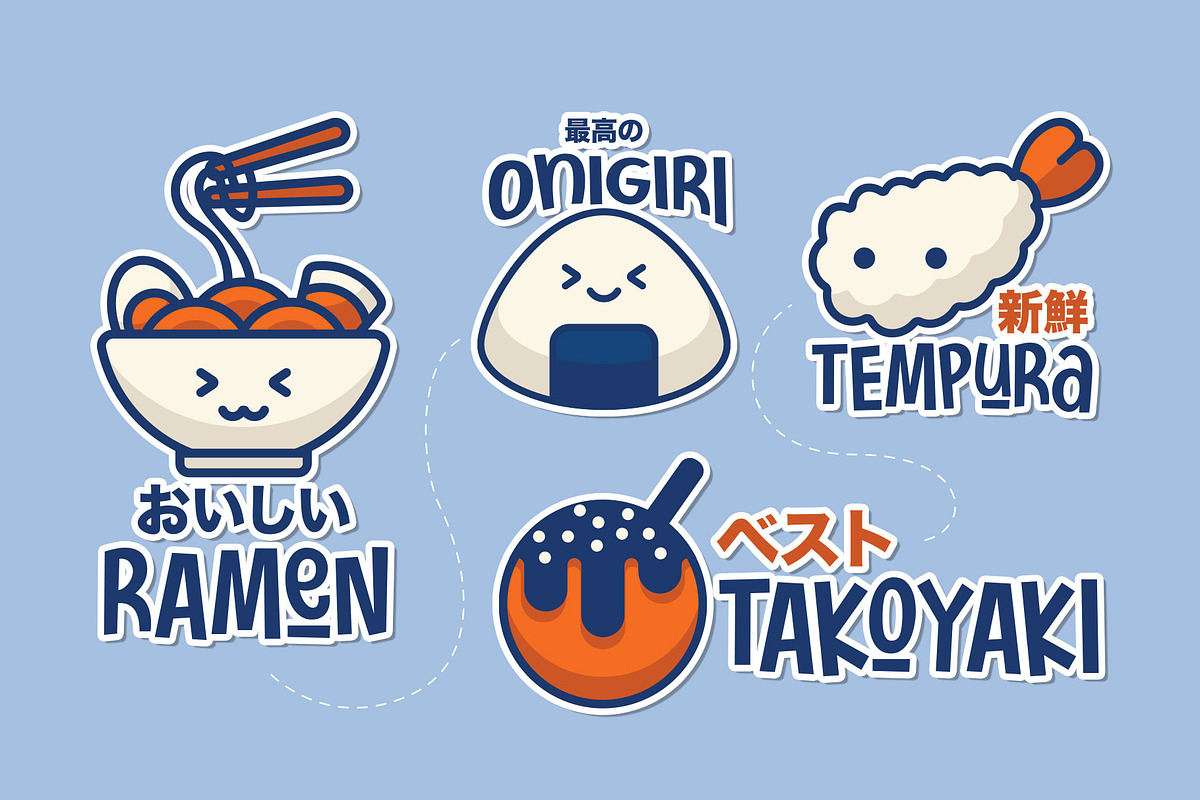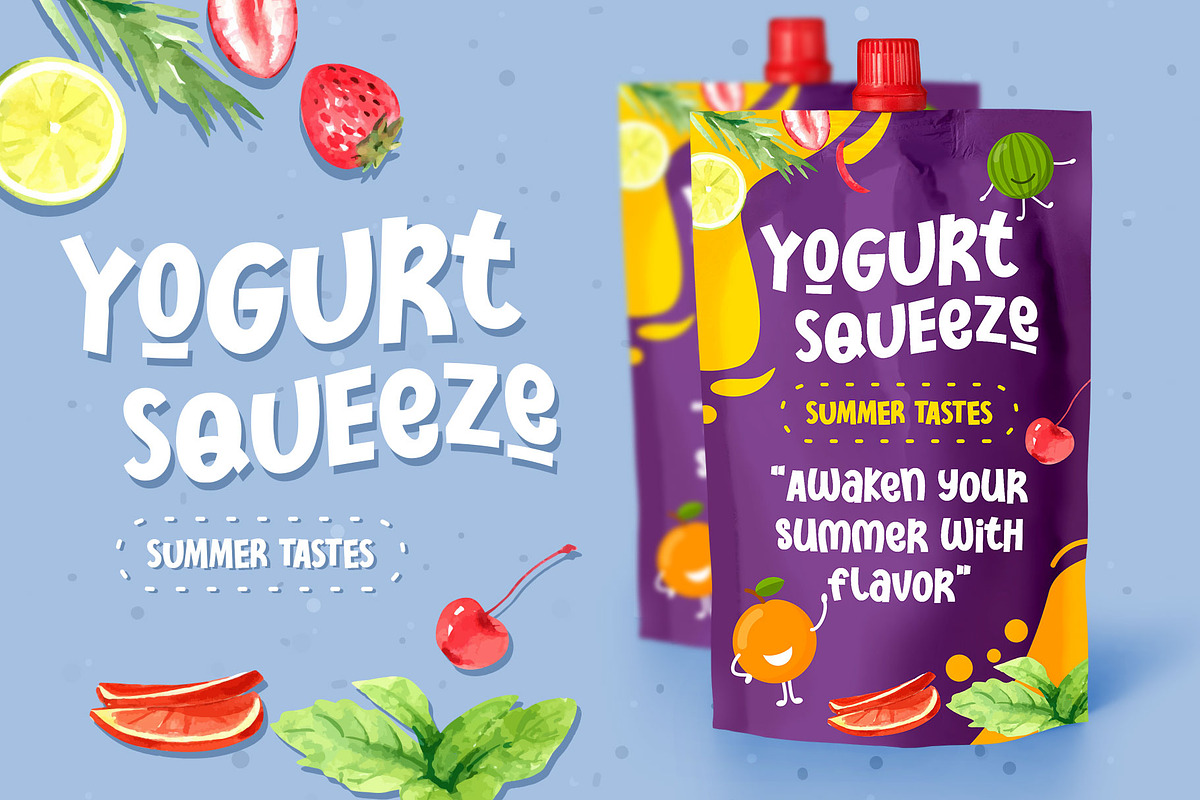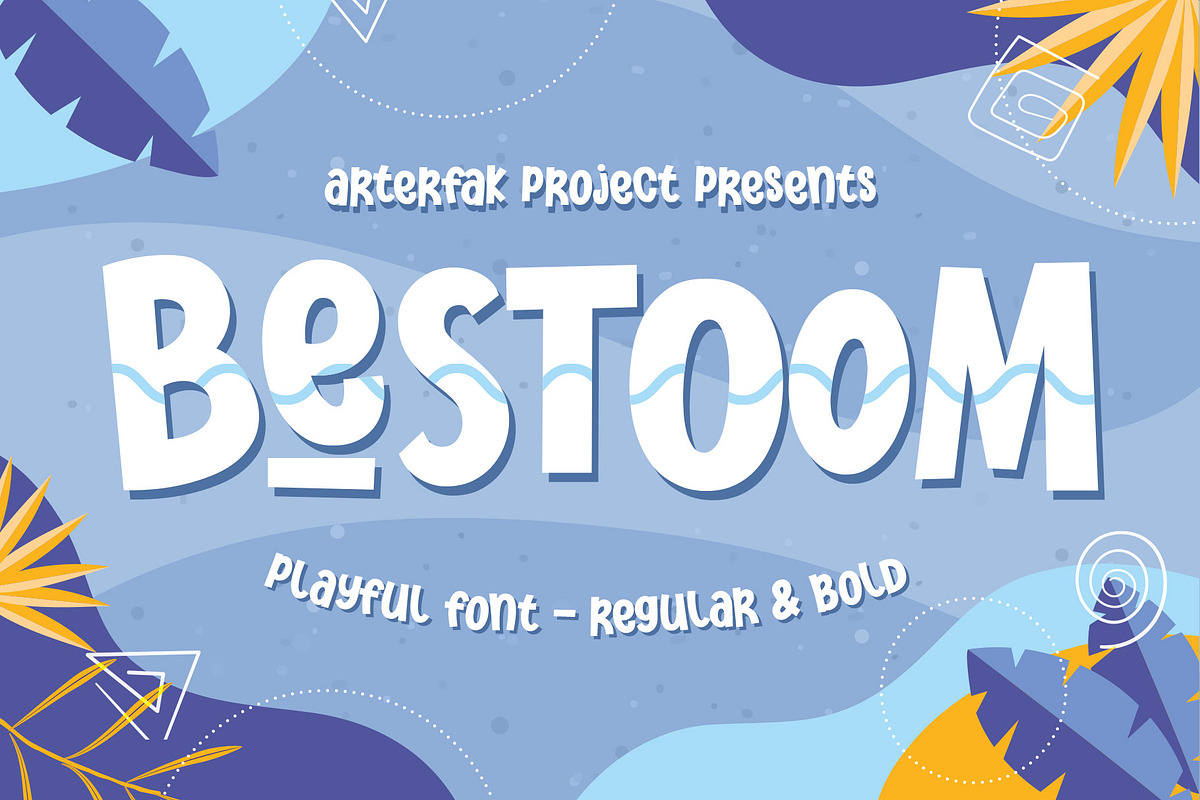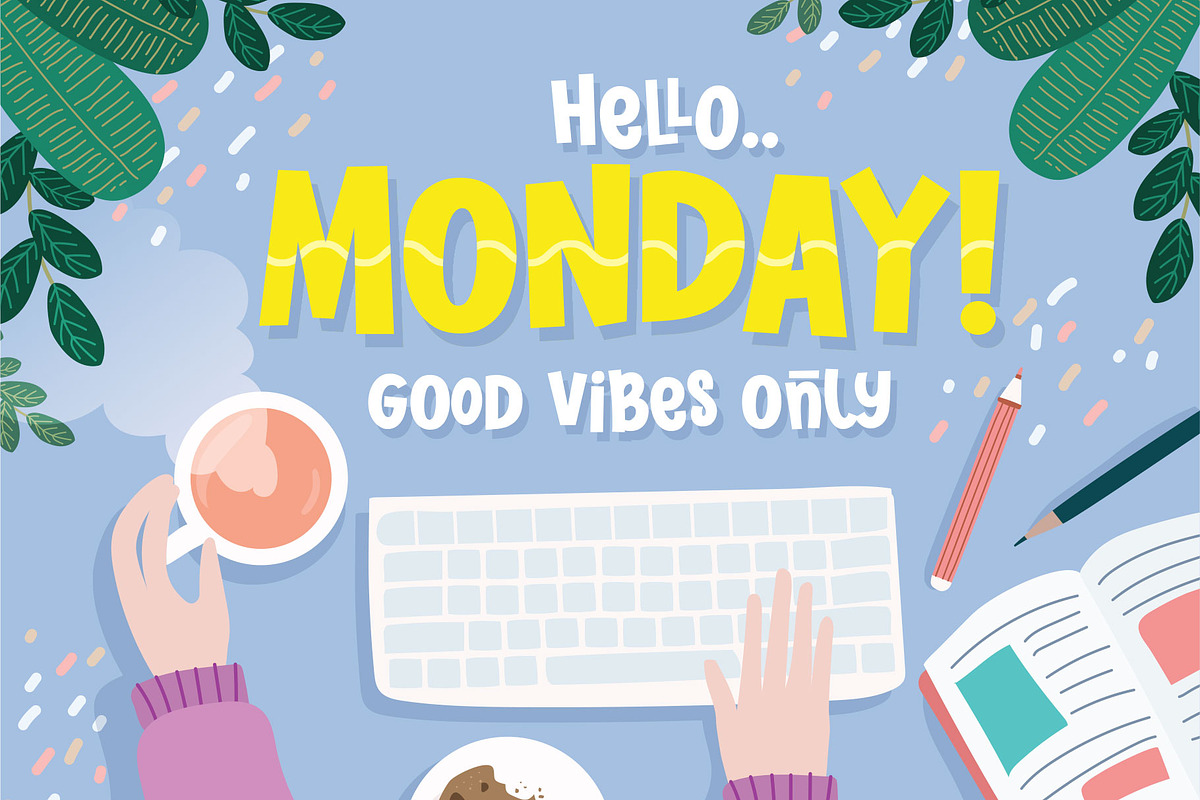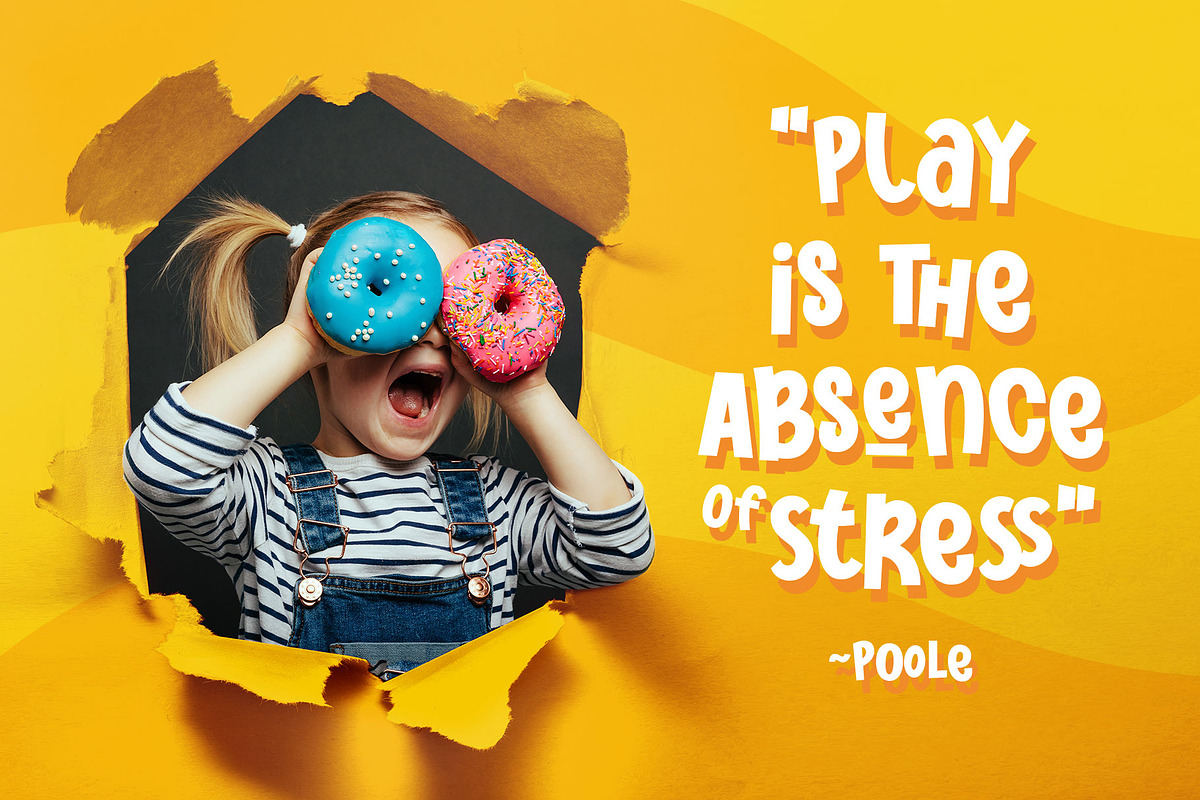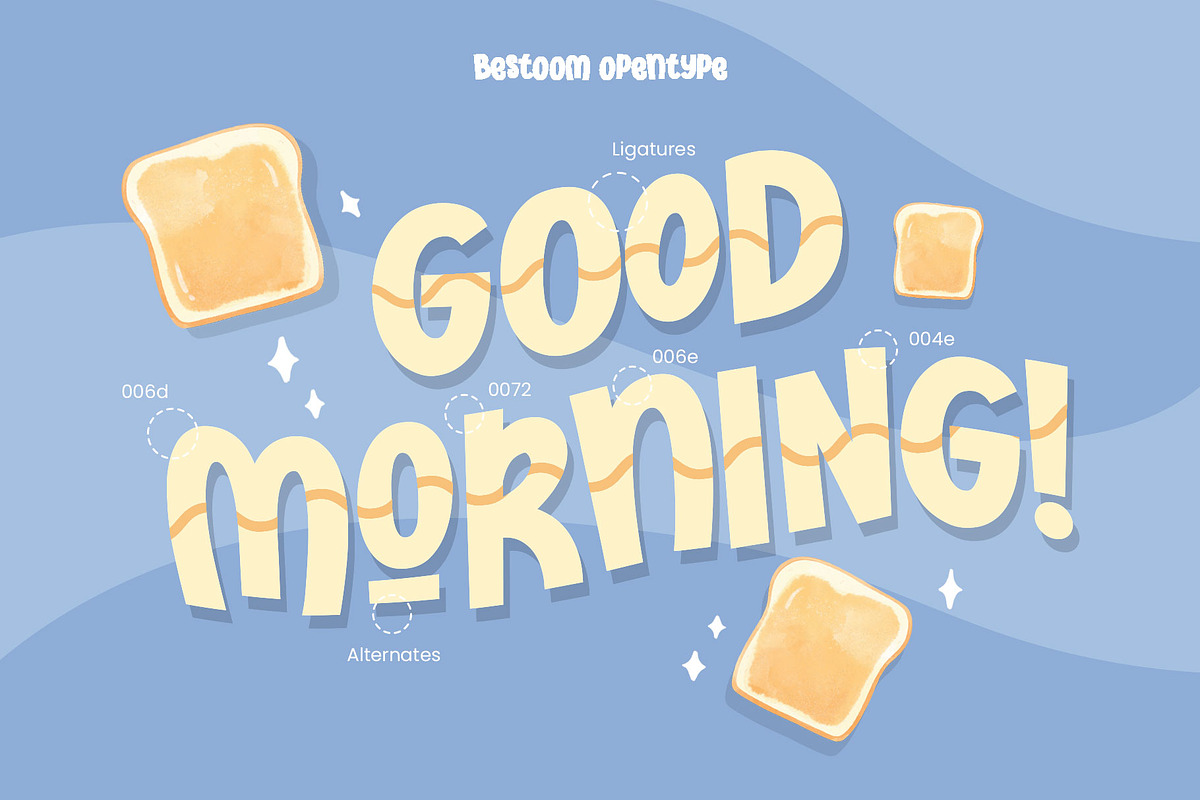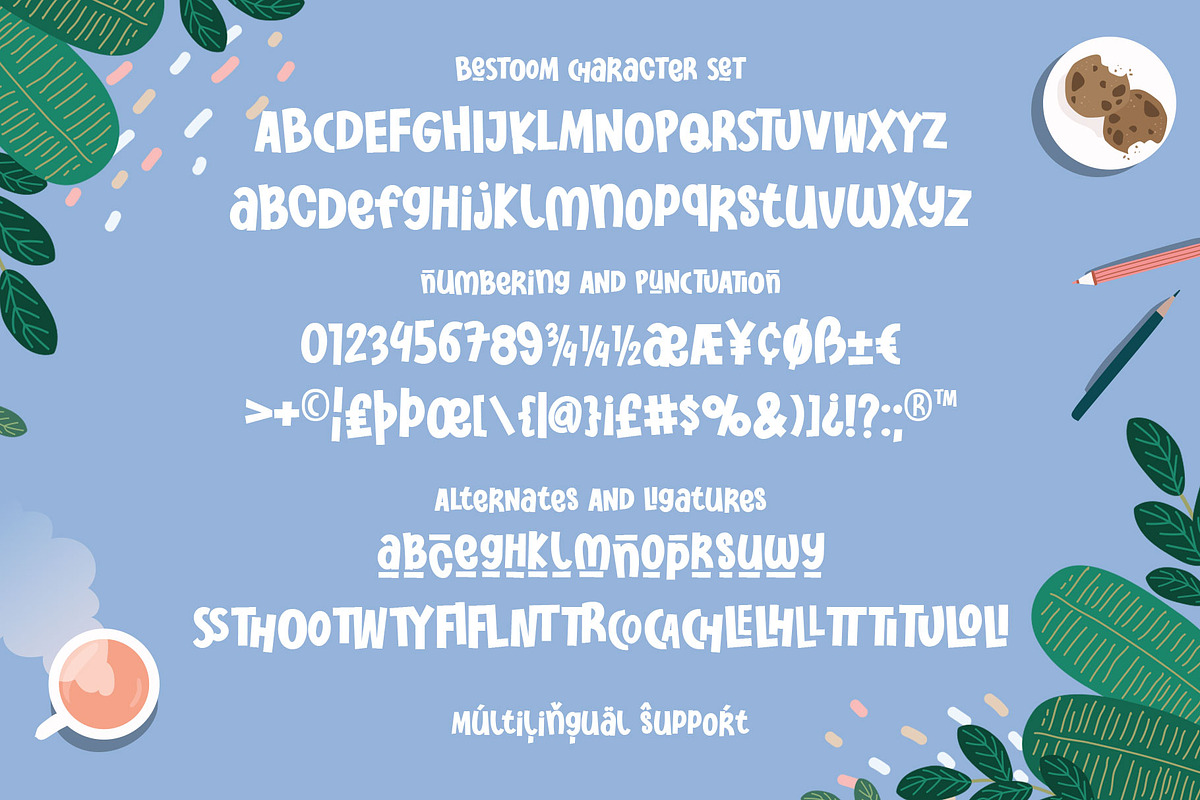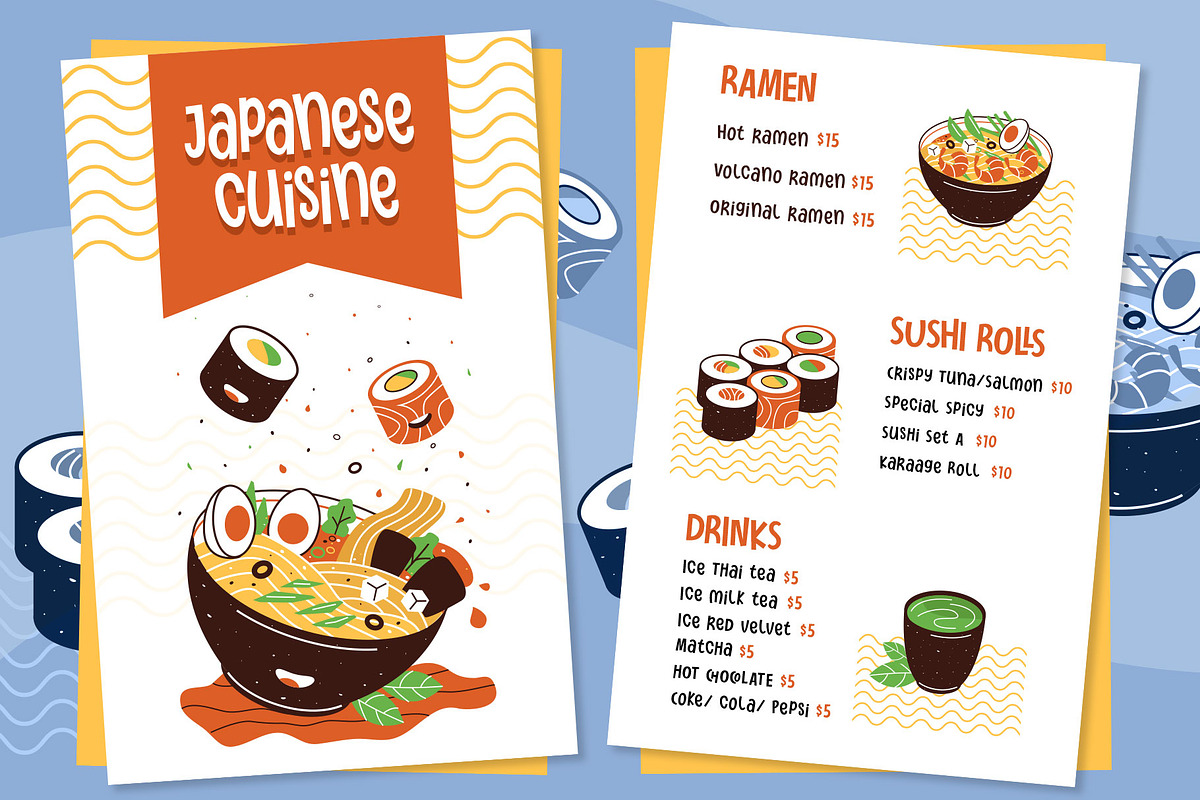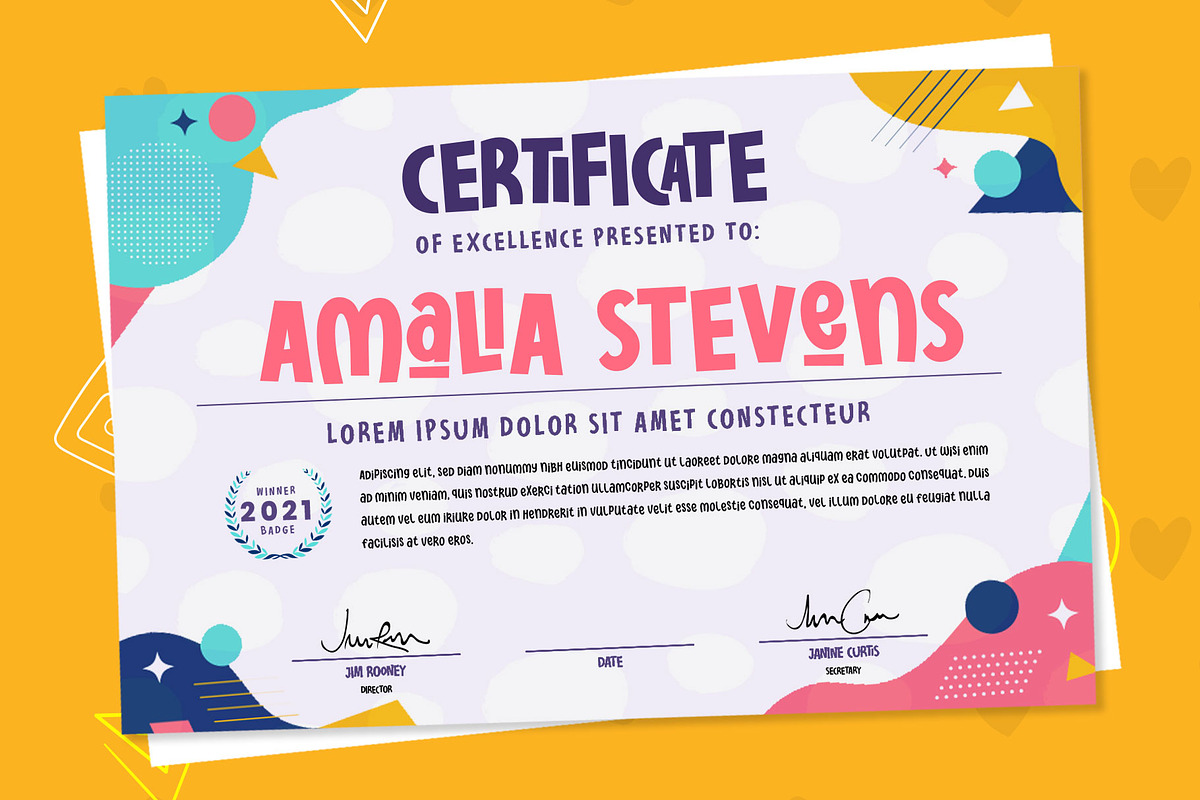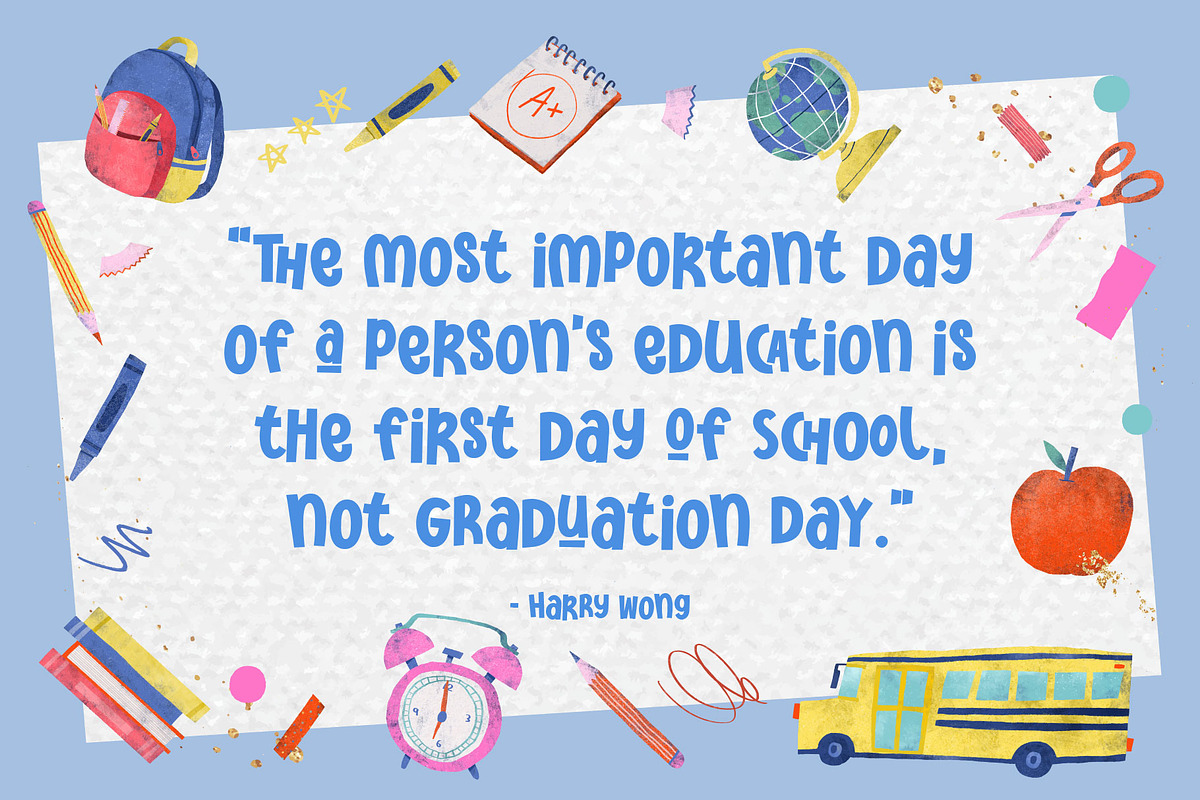
Bestoom - Playful Handwritten
Bestoom is a playful handwritten font, made with dynamic letter strokes and a bouncy layout that makes your design looks more cheerful! Inspired by comic typography and kids' storybook.
This font is available in regular and bold that you can use separated or combined. Bestoom is an all-caps font that has the gorgeous uppercase and lowercase also complete with alternates and playful ligatures that expand your possibility to get many variations of typographic design!
- Stylistic alternates
- Custom ligatures